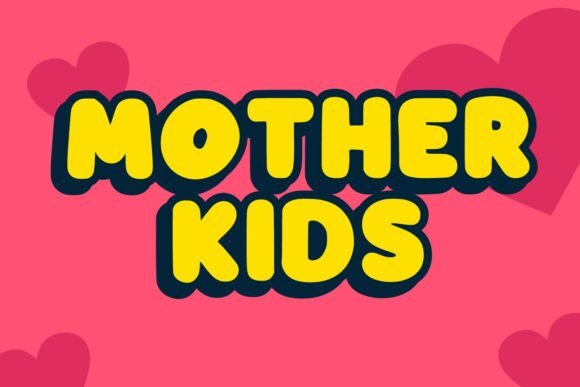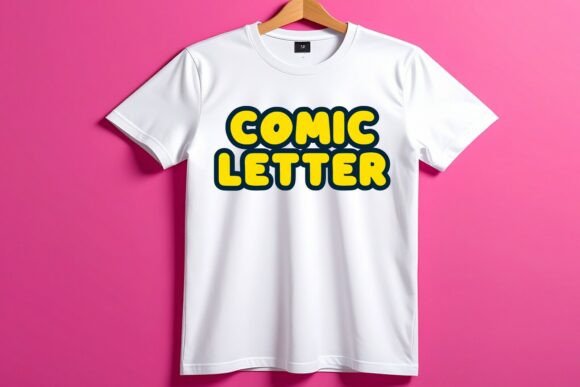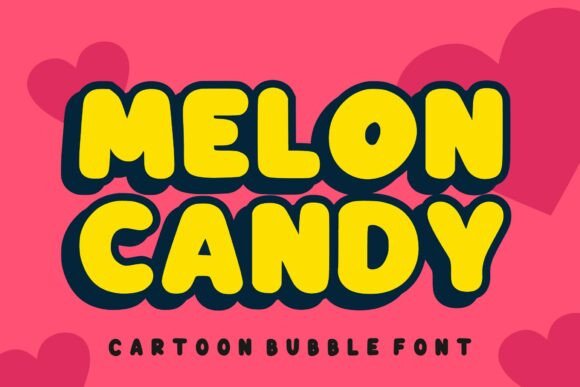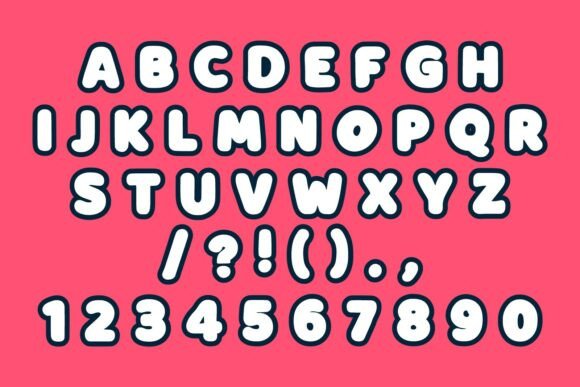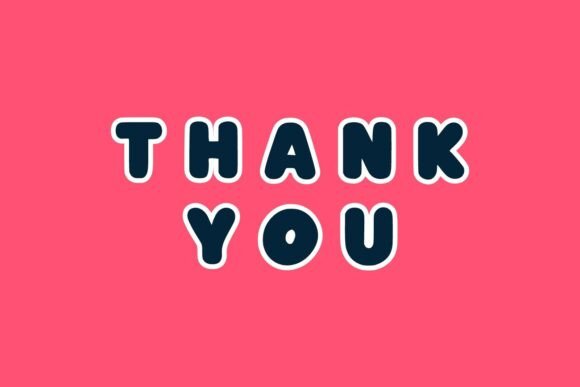
Introduction to Melon Candy Font
Remember the excitement of designing a kids’ birthday party flyer or a children’s book cover? The thrill of adding a splash of color and a dash of whimsy to bring a project to life? For designers, it’s moments like these that make our job a true joy. And sometimes, all it takes is the right font to elevate a design from ordinary to extraordinary.
Enter the Melon Candy Font, a delightful display font that’s sure to put a smile on any designer’s face. With its bold bubble shapes and soft rounded edges, this font is the perfect addition to any creative project that needs a touch of playfulness and youthfulness.
Key Features of Melon Candy Font
- Unique and playful design, ideal for creative projects that require a fun and whimsical touch.
- Perfect for creating eye-catching headings, titles, and labels in a variety of creative projects, including graphic design, digital art, and more.
Honest Review: Melon Candy Font
As a designer, I’m always on the lookout for high-quality design resources to elevate my creative projects. Recently, I came across the Melon Candy Font, which caught my attention with its playful and whimsical feel.
- ✨ The font’s unique design and color palette make it perfect for creating eye-catching visuals.
- ⚠️ The font may not be suitable for all types of projects, as its playful style can come across as unprofessional in certain contexts.
- ⚠️ The font’s character set may not be as extensive as some other fonts, which could limit its usability.
Overall, I’d say the Melon Candy Font is a great addition to any designer’s toolkit. Its high-quality design and versatility make it perfect for a wide range of creative projects. While it may have some limitations, its unique style and free download option make it a worthwhile resource to explore.
Tips for Getting the Most Out of Melon Candy Font
For the best results, use Melon Candy Font in conjunction with other design elements, such as colorful backgrounds and graphics. Experiment with different font sizes and styles to create visually appealing designs.
Common Use Cases for Melon Candy Font
Melon Candy Font is perfect for designs that require a playful, whimsical touch, such as children’s party invitations, dessert menus, and candy-themed packaging.